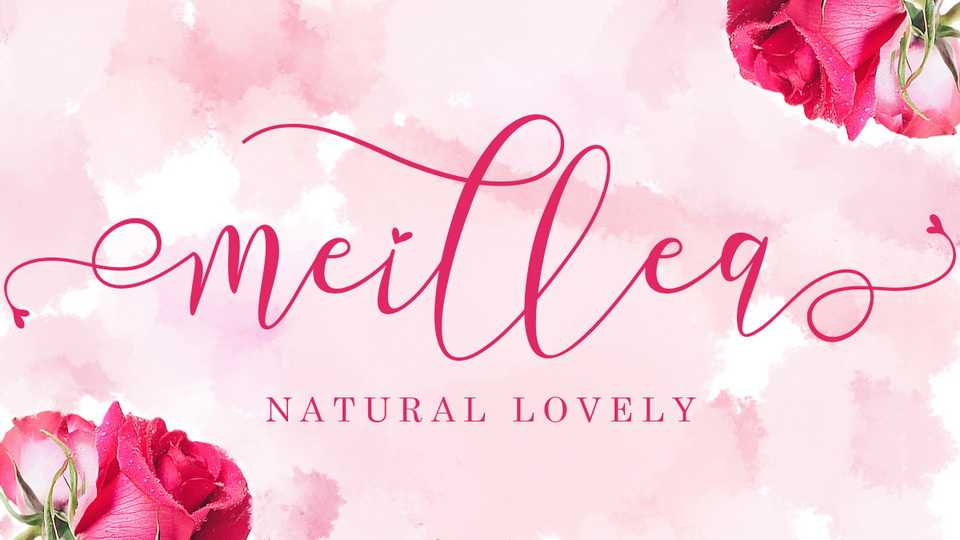
Download Meillea font, a high quality handwritten typeface that is made with a subtle touch, resulting in a very beautiful, elegant font suitable for all types of your work.